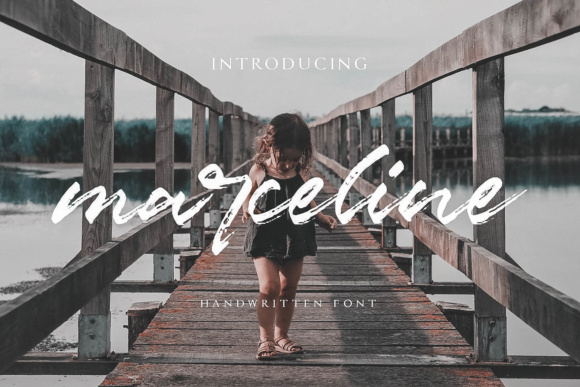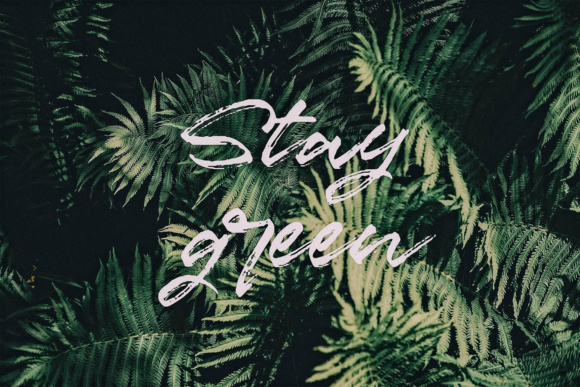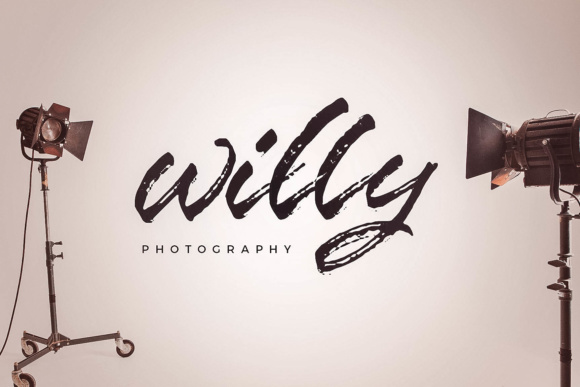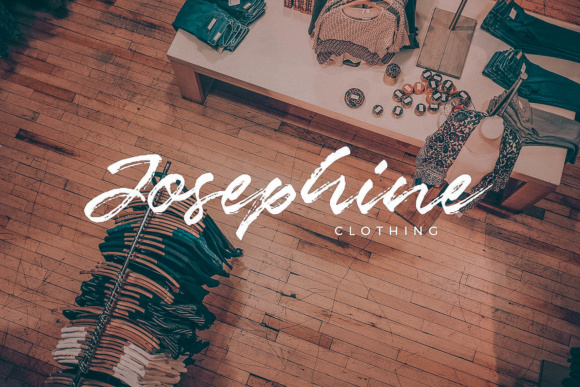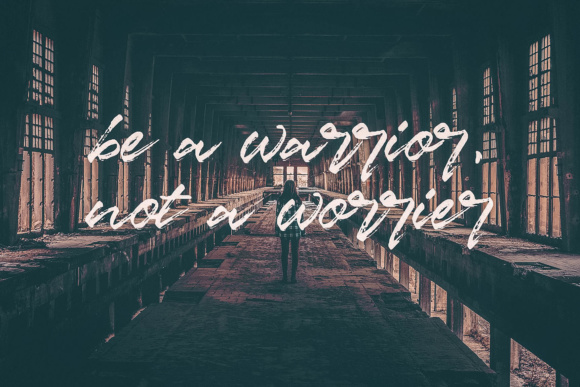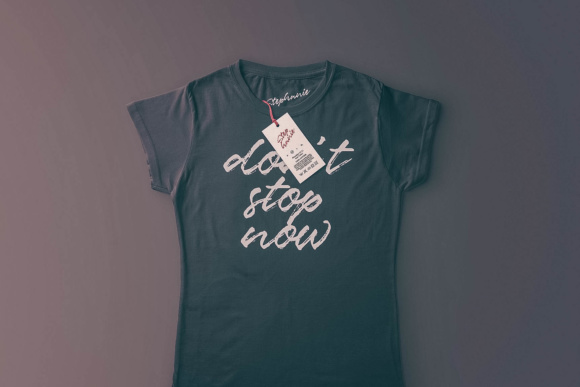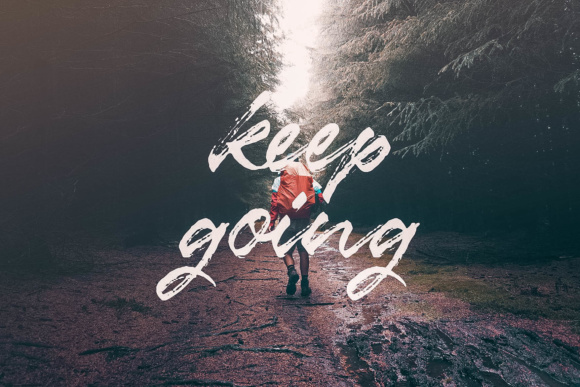
Marceline Font
About Marceline Font
Marceline is a fun and relaxed hand-brushed font, ideal for projects that need to exude a summertime feel. This font has a dry brush look, so this works for highly stylized projects that favor style over legibility.